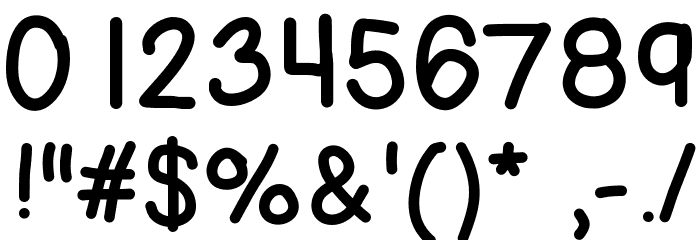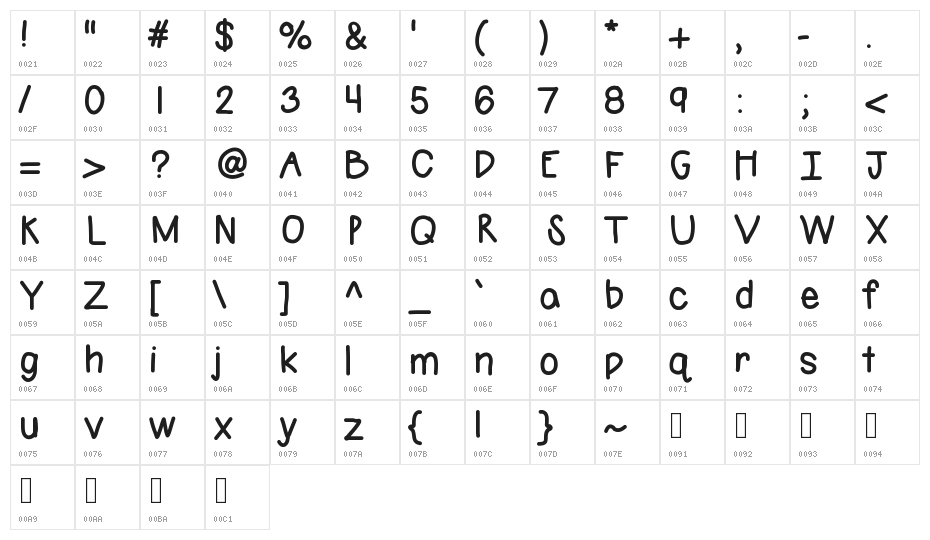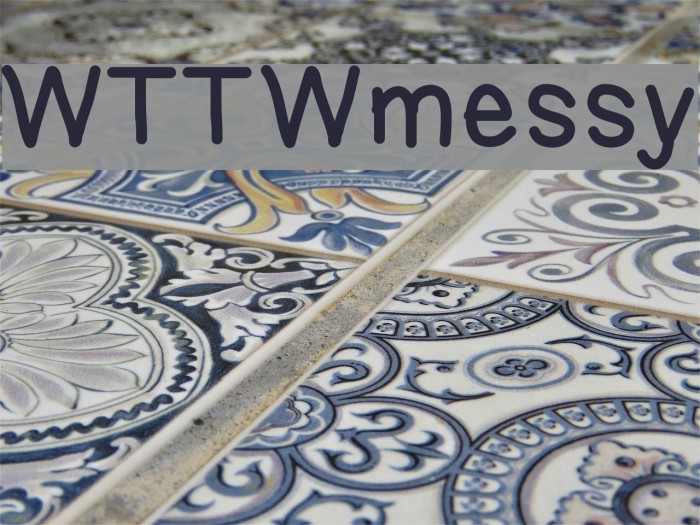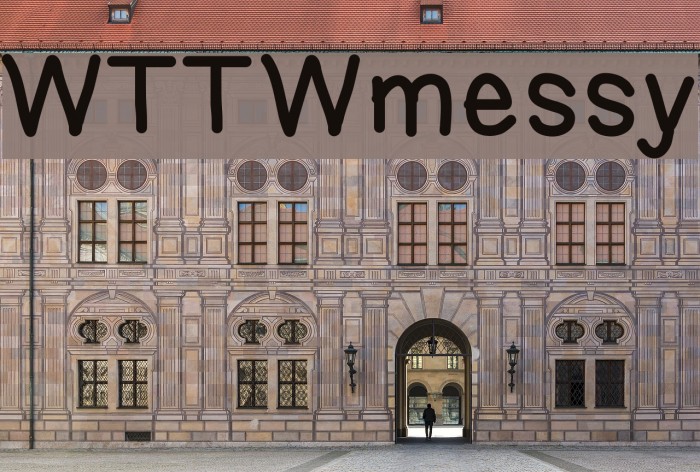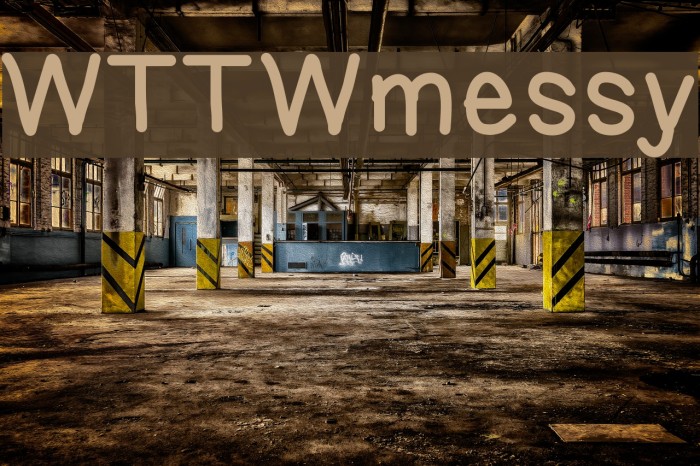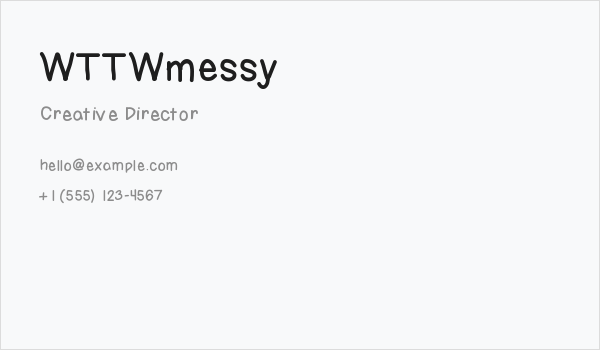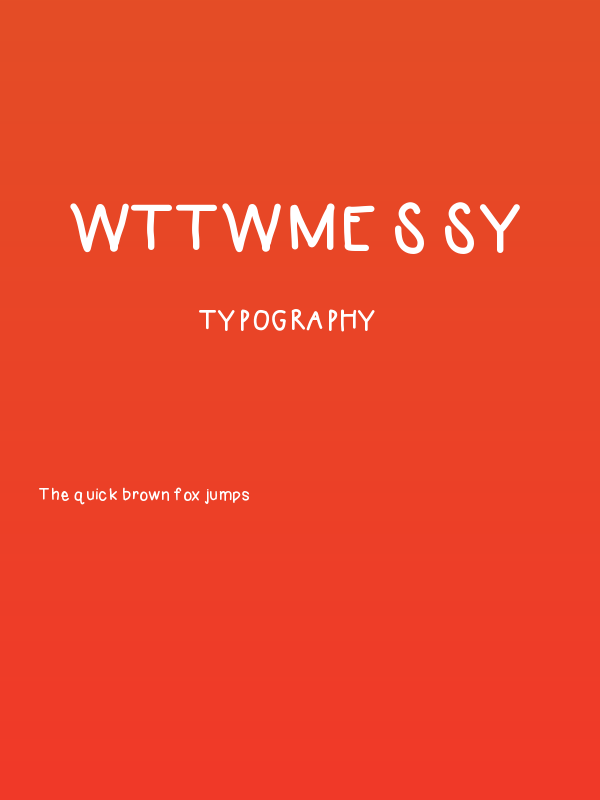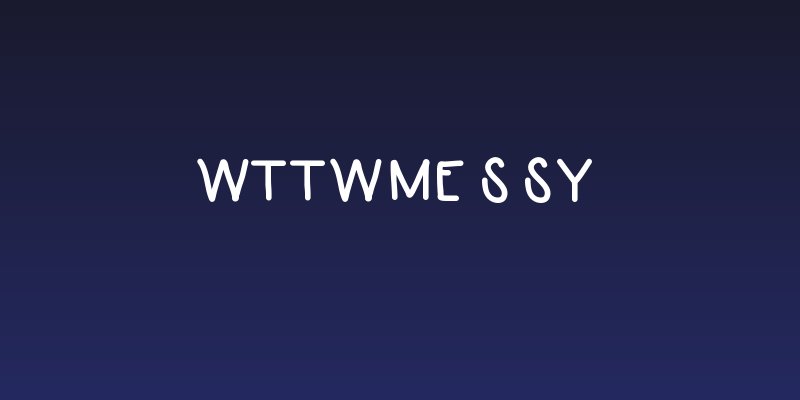
WTTWmessy Font
WTTWmessy Description
This playful and informal font features rounded, hand-drawn characters that exude a casual and friendly vibe. The letters are slightly irregular, adding a whimsical touch that makes it ideal for creative projects. The strokes are consistent in thickness, providing a uniform appearance despite the font's playful nature. The numerals and special characters maintain the same hand-drawn style, ensuring cohesion across all text elements. This font is perfect for projects that require a personal, approachable feel, such as children's books, greeting cards, or informal branding.
| Proposed Projects | Children's books, greeting cards, informal branding, creative projects. |